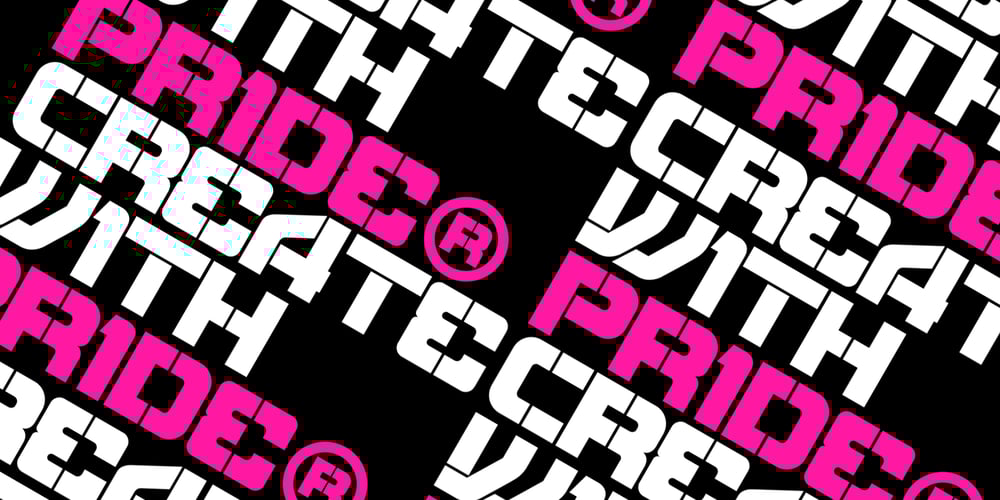
Taku
Taku font
Taku Font Family was designed by Alex Haigh and published by HyperFluro. Taku contains 2 styles and family package options. Taku comes in two styles, Taku regular and Taku Solid. As one of the most creative faces to date, this is a beautiful piece aimed at a whole range of markets for print and digital work. Super creative, extremely eye catching, and almost obsessively accurate. Taku is a typographers dream, over 300 hours of work on aesthetics and technical details, so you can expect the most high quality typeface around.